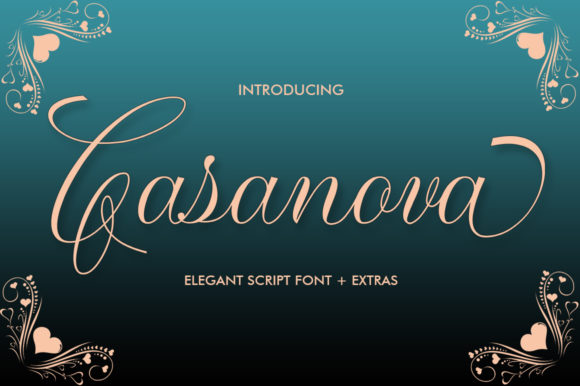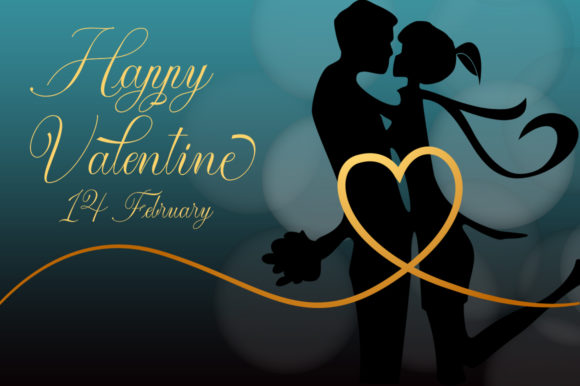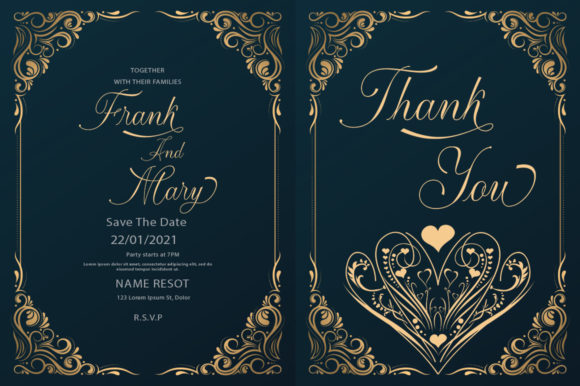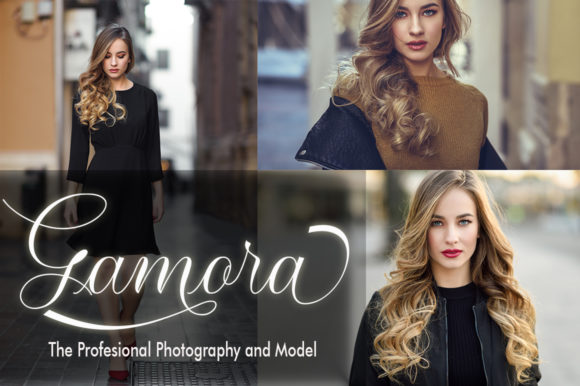
About Casanova Font
“Casanova” sounds like a superb handwritten font that exudes charm and elegance. With its captivating appearance, this font is an excellent choice for a wide range of design projects.
By using “Casanova” in your designs, you can create a sense of sophistication and allure. Its handwritten style adds a personal touch, making your projects feel more intimate and charming.
This font’s superb charm makes it suitable for various design applications. Whether you’re working on wedding invitations, greeting cards, logos, branding, or any other project, “Casanova” can effortlessly enhance the visual appeal and create a charming atmosphere.
With “Casanova,” you have a font that elevates the aesthetic of your designs with its graceful and charming look. Embrace its elegance and let it be the font that adds a touch of allure to your creations.
Incorporate “Casanova” into your designs, and you’ll notice how it brings a unique charm to your projects. Its superb handwritten style will make your designs stand out with elegance and charisma.
While using “Casanova” in your designs, remember to maintain legibility, especially for longer texts. Proper spacing and alignment between letters ensure that the text remains clear and easy to read, preserving the font’s overall charm and elegance.
In conclusion, “Casanova” is a superb handwritten font that offers charm and sophistication. Embrace its captivating appearance and use it for various design projects to add a touch of allure and elegance. With “Casanova,” your projects will exude a delightful charm and captivate the hearts of your audience, making them truly exceptional and filled with allure.